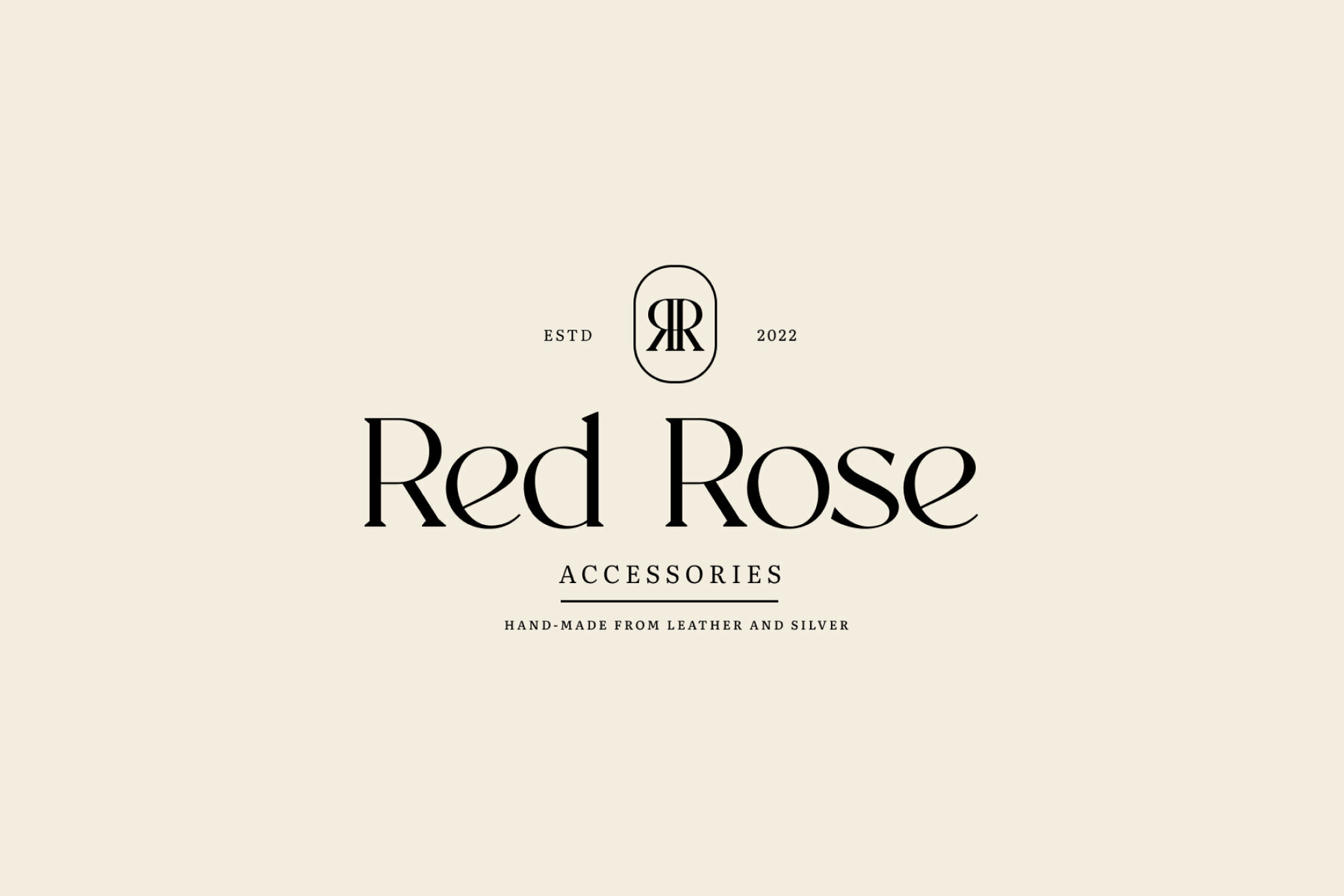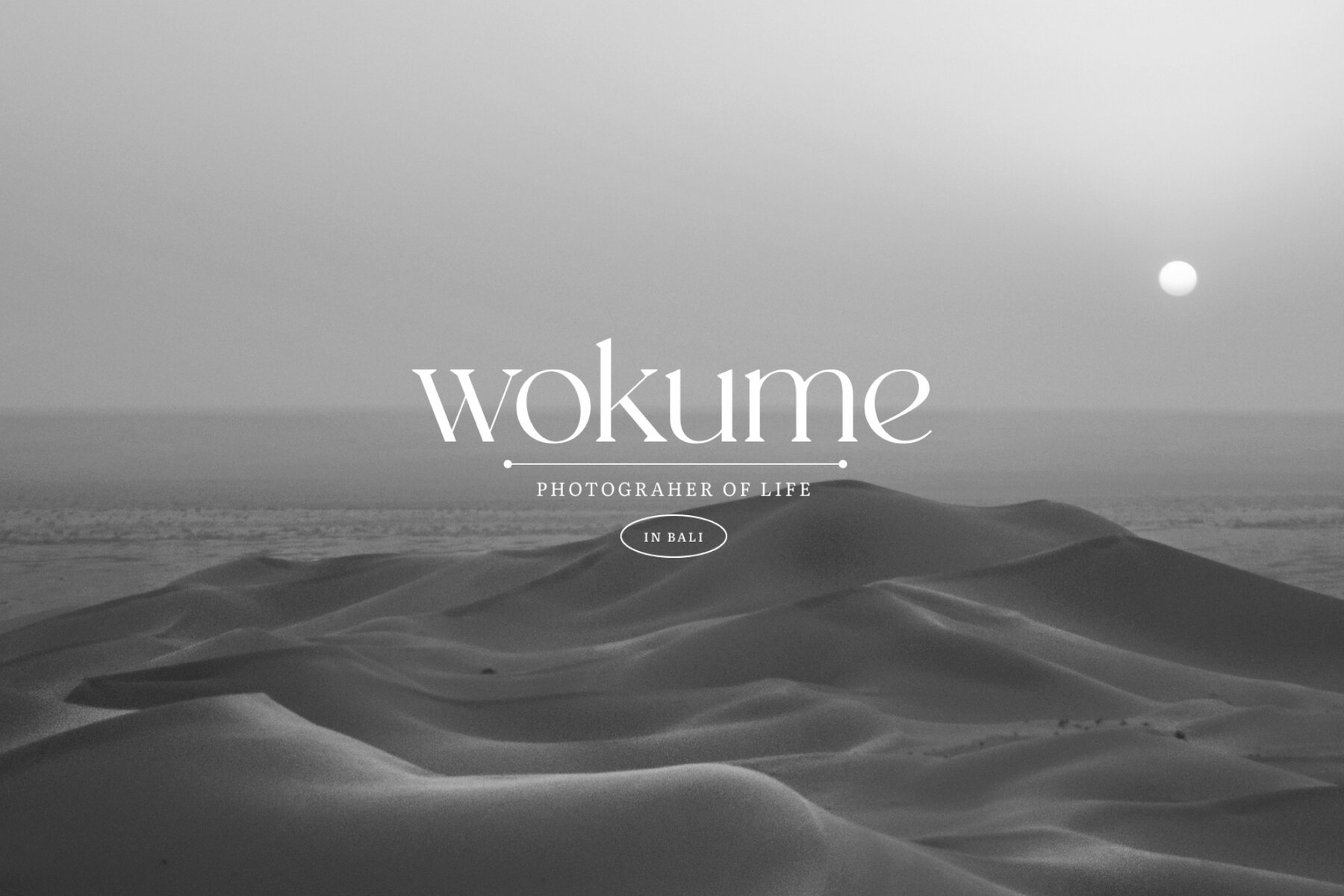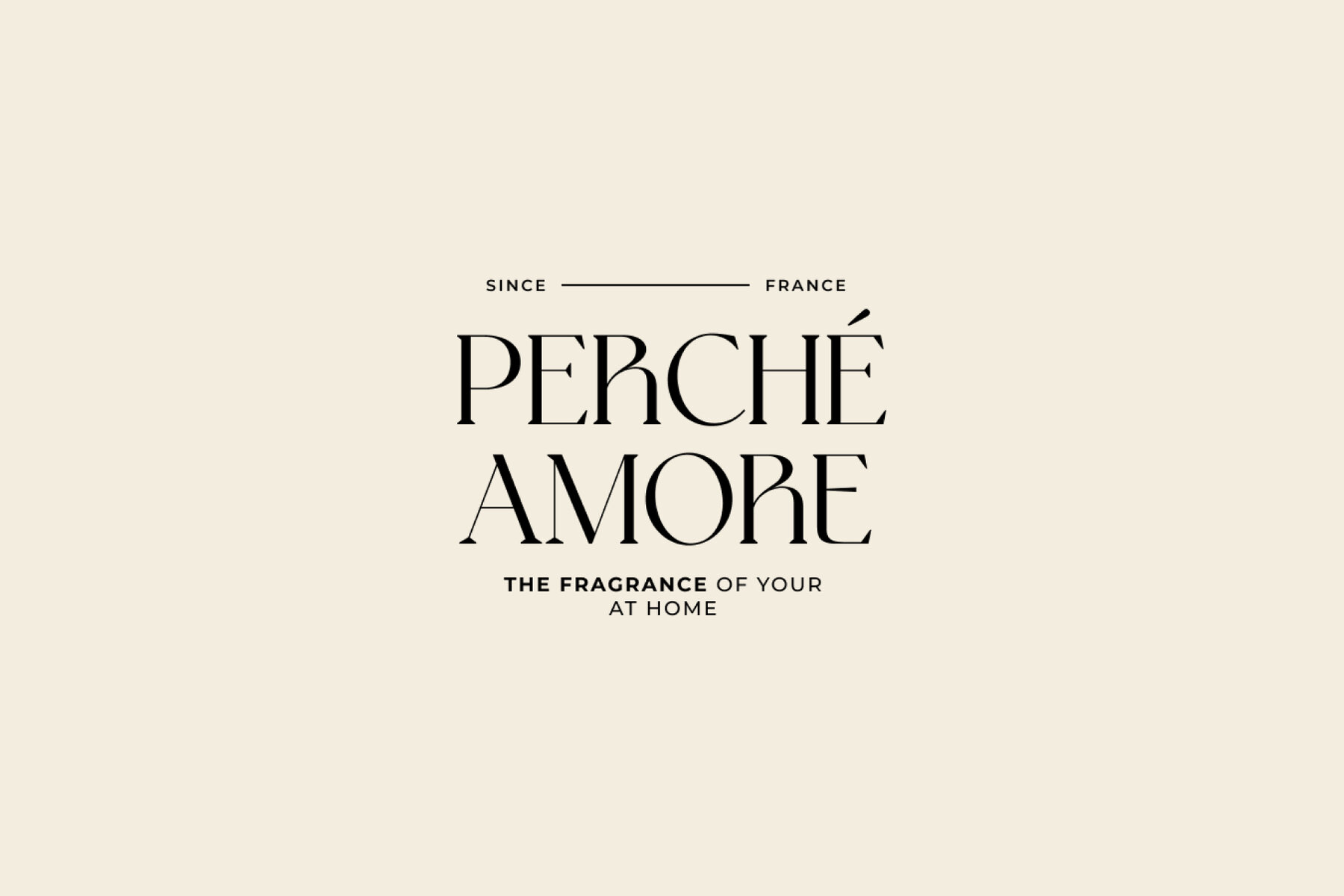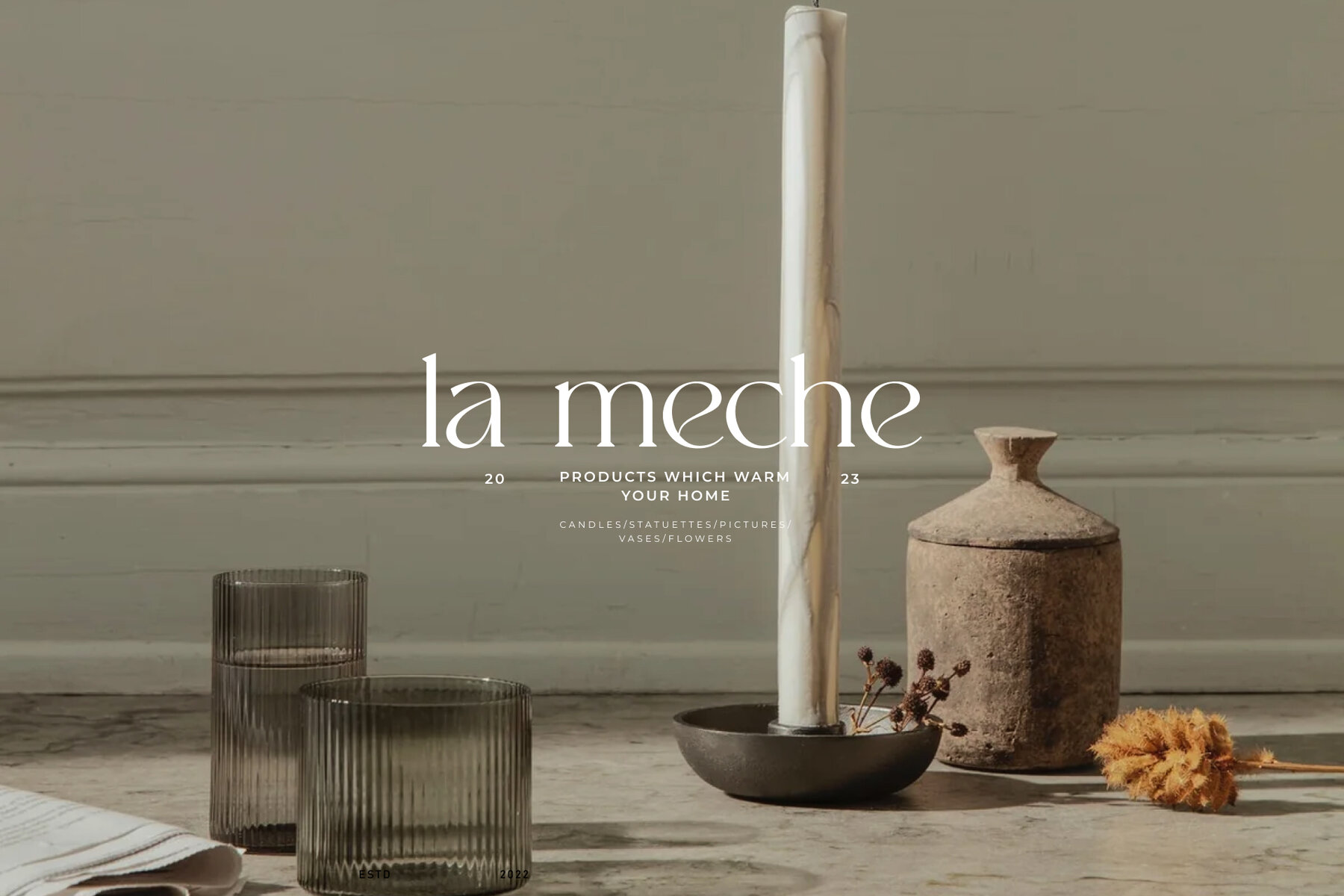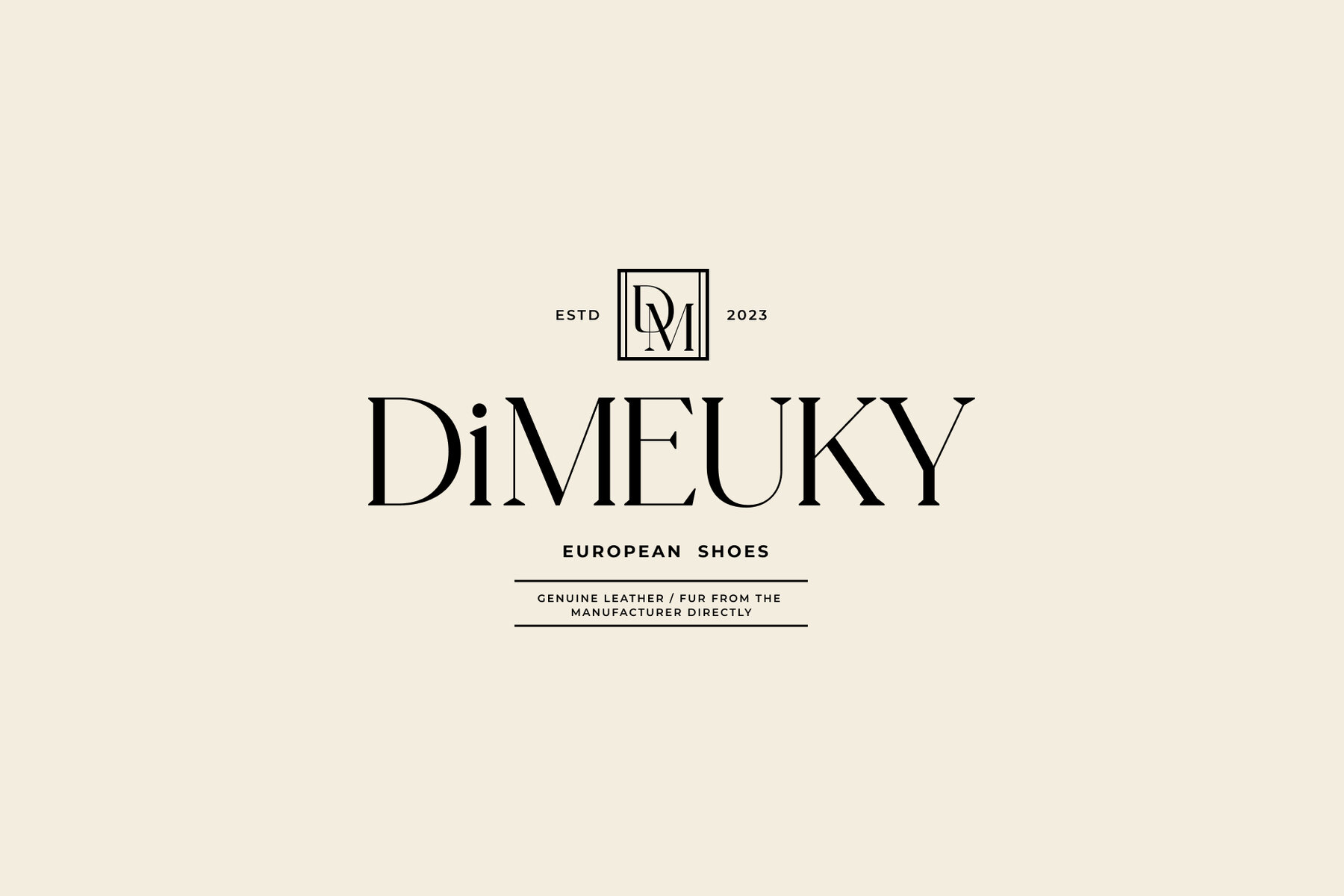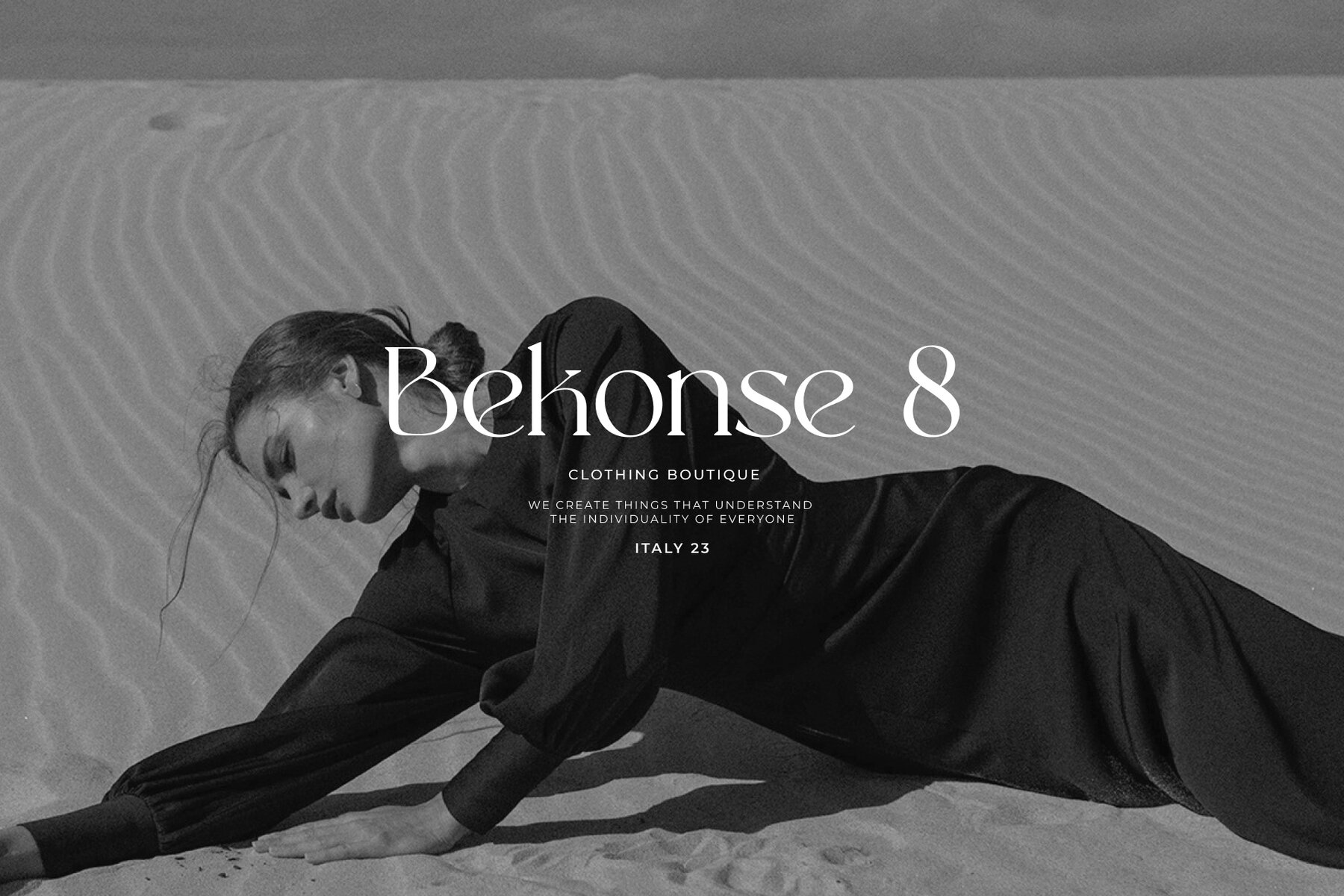
NT Fabulous Font
NT Fabulous is a thoughtfully designed serif font by nevsky.type, supporting an extensive range of over 200 Latin-based languages. Ideal for a variety of design projects, its elegant style and versatility make it a superb choice for both digital and print media.NT Fabulous: A Versatile Serif Font by Nevsky.type